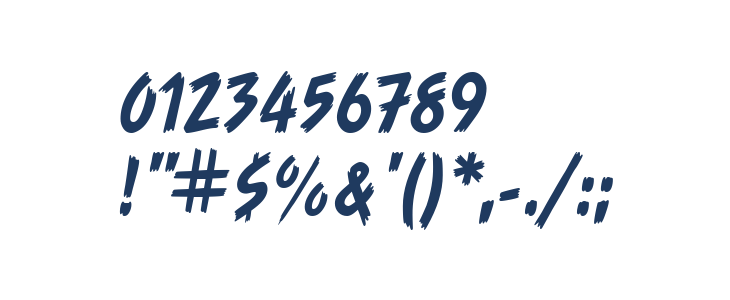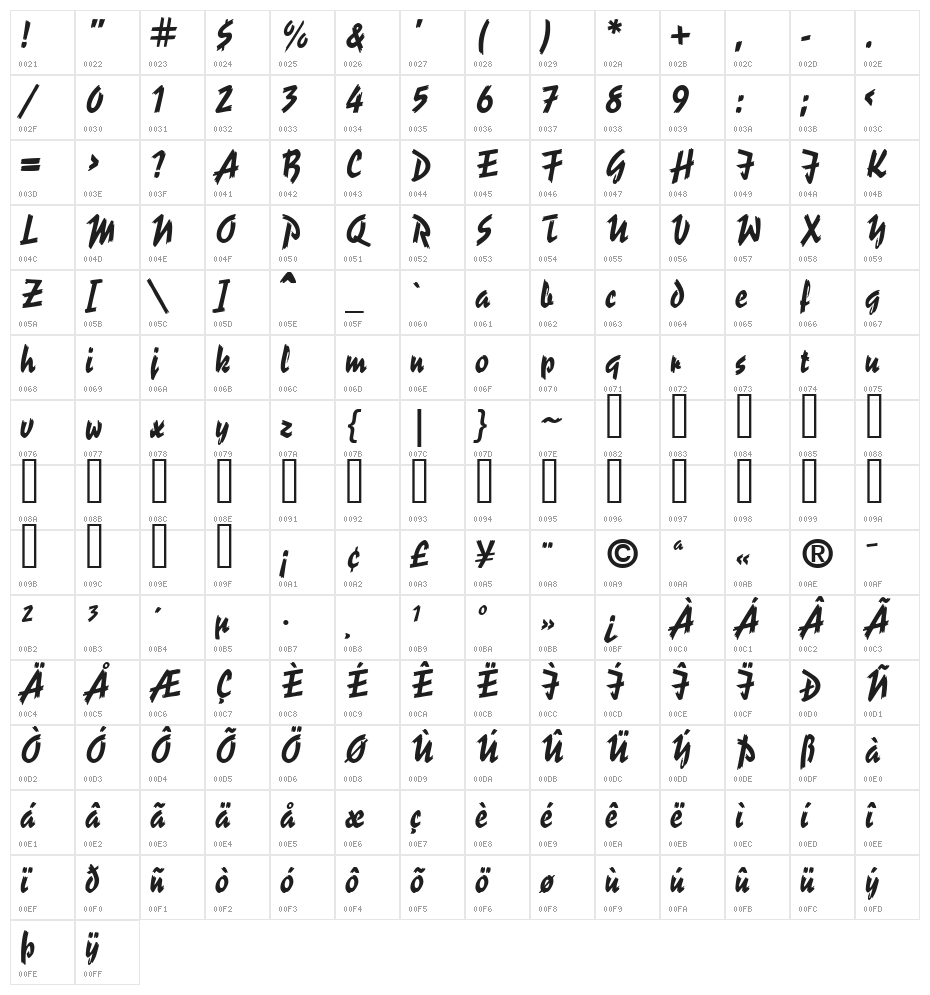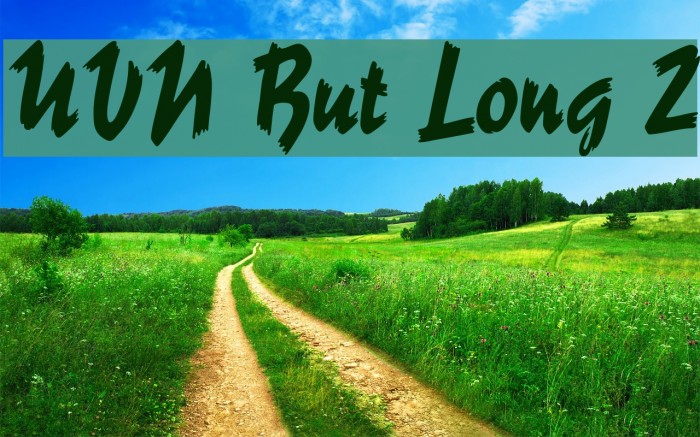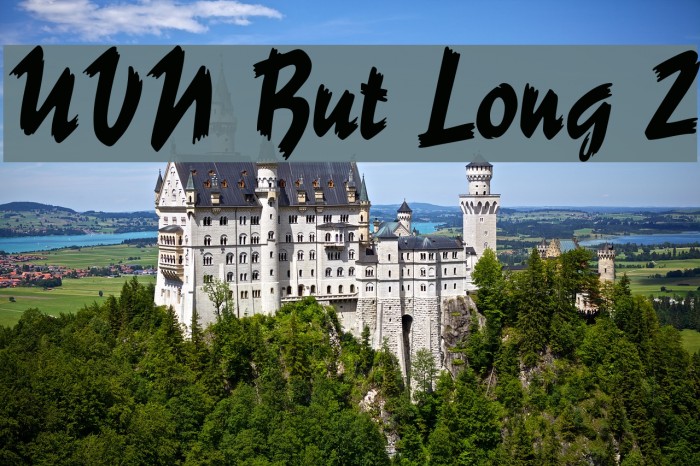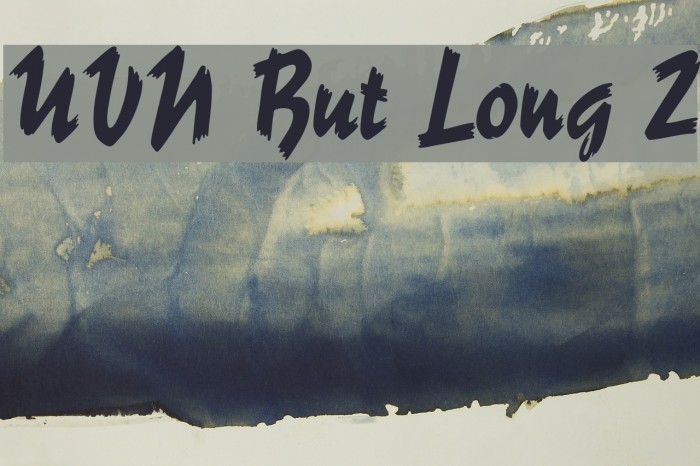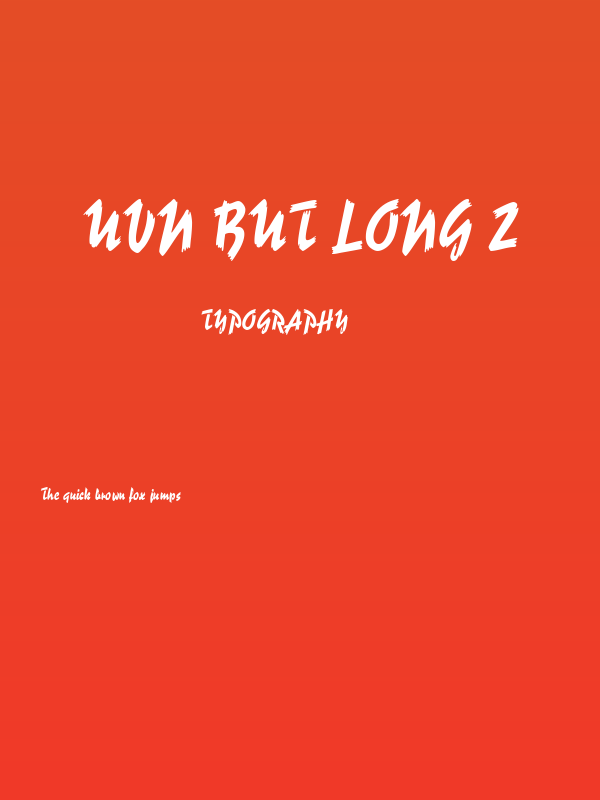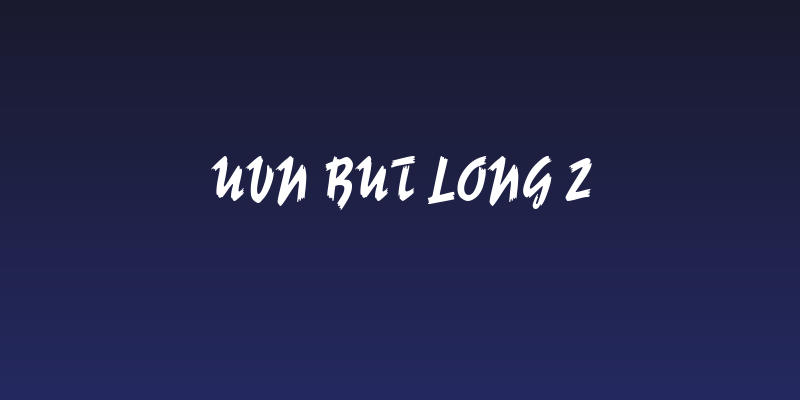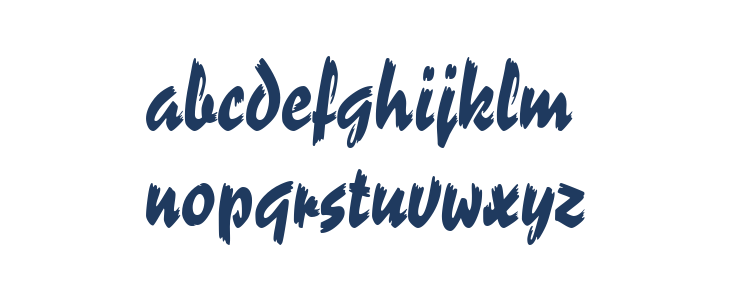
UVN But Long 2 Font
UVN But Long 2 Description
This font exhibits a bold and dynamic brush script style, characterized by its energetic and expressive strokes. The letters have a hand-painted appearance, with varying thickness that adds a sense of movement and flair. The uppercase and lowercase letters maintain a consistent style, with sharp angles and fluid curves that create a cohesive look. The numerals and special characters follow the same aesthetic, ensuring uniformity across all glyphs. This font's bold presence makes it suitable for eye-catching designs that require a touch of creativity and spontaneity.